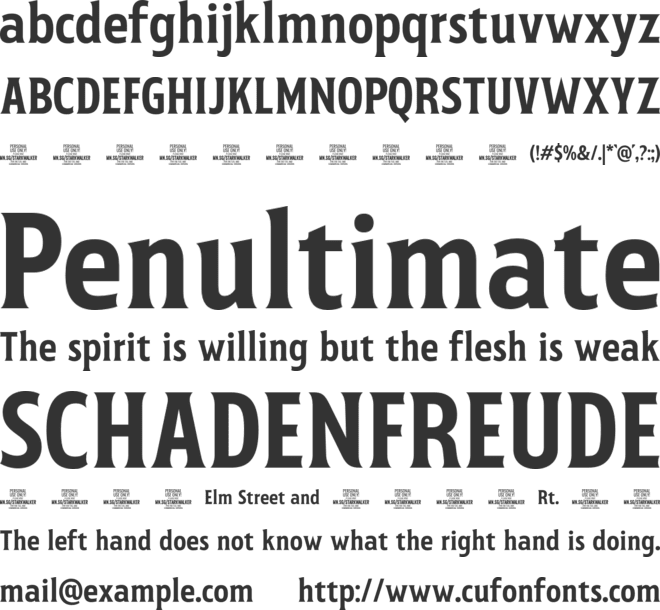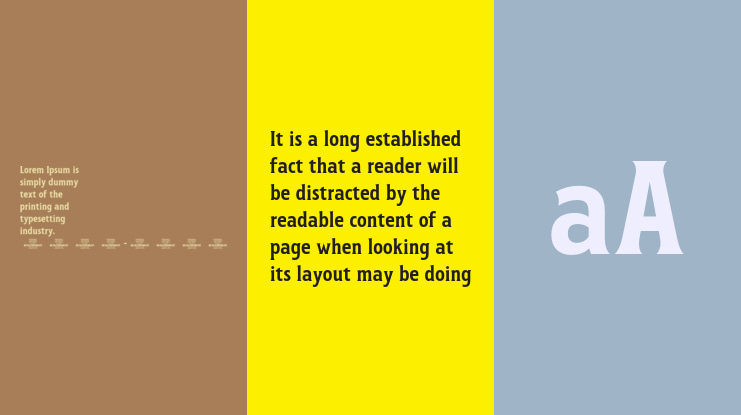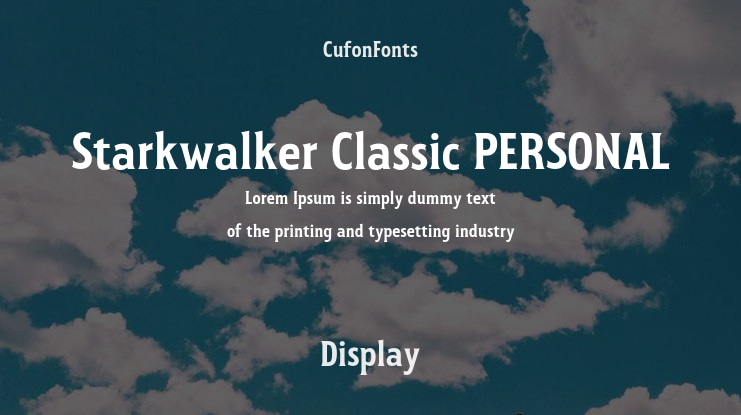
Starkwalker Classic PERSONAL Font Family
NOTE: This font is for PERSONAL USE ONLY!To purchase a commercial license, visit:https://www.mansgreback.com/product/starkwalker-classicStarkwalker Classic is a bold and commanding serif typeface that blends retro aesthetics with space-age flair. Its heavy structure gives it a grounded feel while maintaining a sleek, futuristic edge. Drawing inspiration from classic storefront signage, Starkwalker Classic feels at home in both retro and modern settings, with its bold weight making it ideal for impactful headlines or logos. For questions, please visit https://www.mansgreback.com/faq